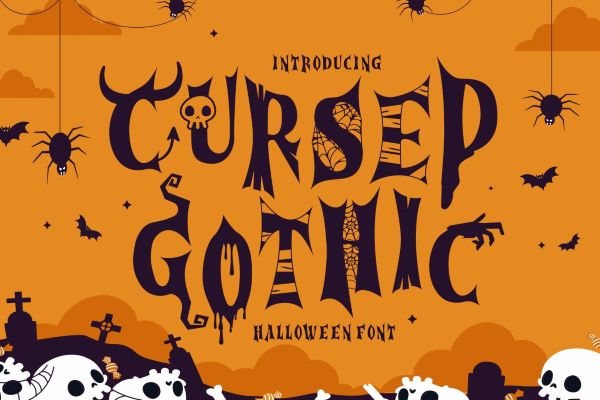
Cursed Gothic Font
Cursed Gothic by PutraCetol Studio is a free Halloween Gothic display font with an extraordinary scope — a freaky font released as a complete 10-style family including Mummy, Skull, Wood, Drop, Root, Witch, Zombie, Devil, and Web variants, each bringing its own dark thematic texture to the same underlying Gothic letterform structure. Free for personal use; commercial via putracetol.com.